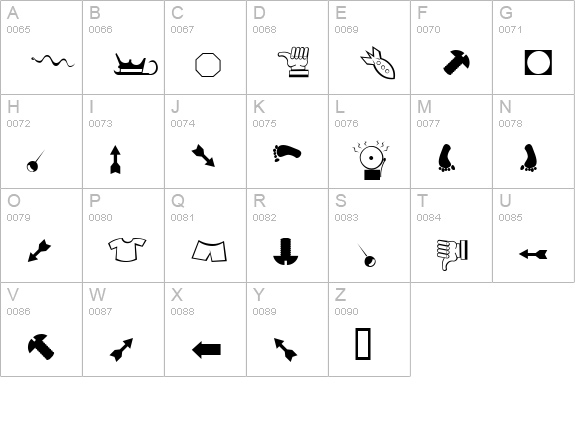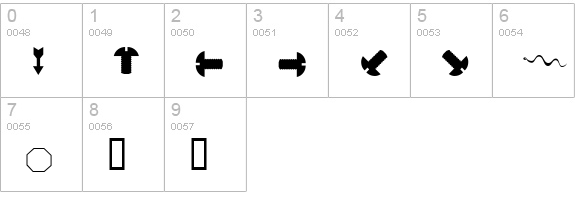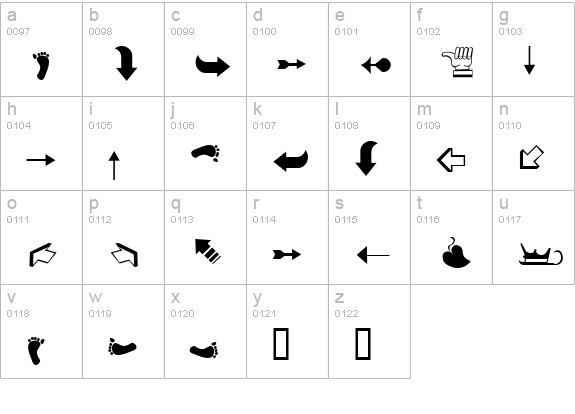
A&L Dingbats 2 Normal Font Details
A&L Dingbats 2 Normal is the standard, neutral variant in the A&L typeface family \xE2\x80\x94 well suited to general body text, paragraphs, and standard typographic work.
A&L Dingbats 2 Normal font is a delightful and unique typeface that is sure to capture the attention of any design enthusiast. With its whimsical and playful aesthetic, this font is perfect for adding a touch of fun to any project. Featuring a wide range of symbols, icons, and dingbats, A&L Dingbats 2 Normal font offers endless possibilities for creative expression. Whether you're designing a poster, creating a logo, or simply adding some visual interest to your next project, this font has got you covered. What makes A&L Dingbats 2 Normal font even better is that it is completely free. That's right, you can download and use this font without spending a dime. It's just one of the many amazing fonts freely available to download at FontsMarket.com, a trusted source for high-quality fonts. So why wait? Take your designs to the next level with A&L Dingbats 2 Normal font. Let your creativity run wild as you explore the countless possibilities this font has to offer. Download it for free today at FontsMarket.com and start adding a touch of whimsy to your projects.